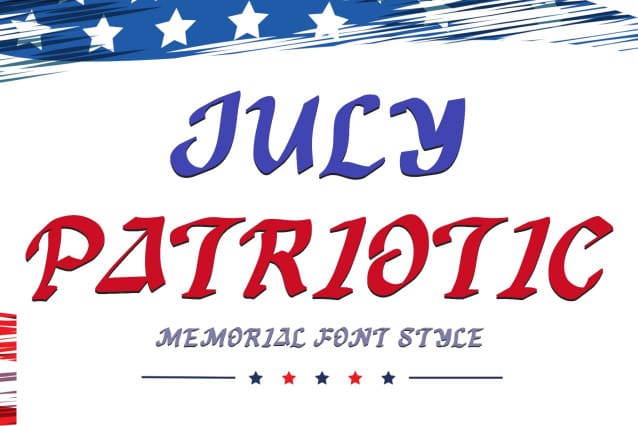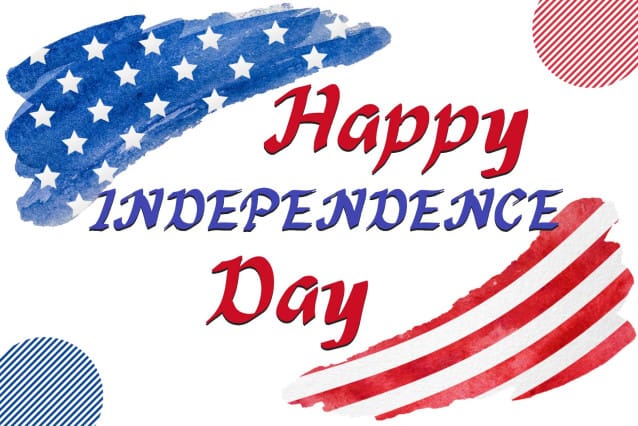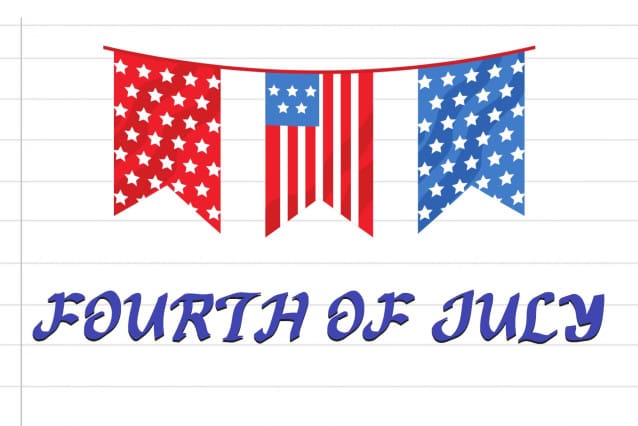
July Patriotic Font
July Patriotic Font is an elegant blackletter font. This font comes with uppercase, lowercase, numbers, punctuation and multilingual support. Very suitable for 4th of July, banners, branding, stickers, posters, summer, Halloween, Christmas, teachers, fathers, back to school and others.